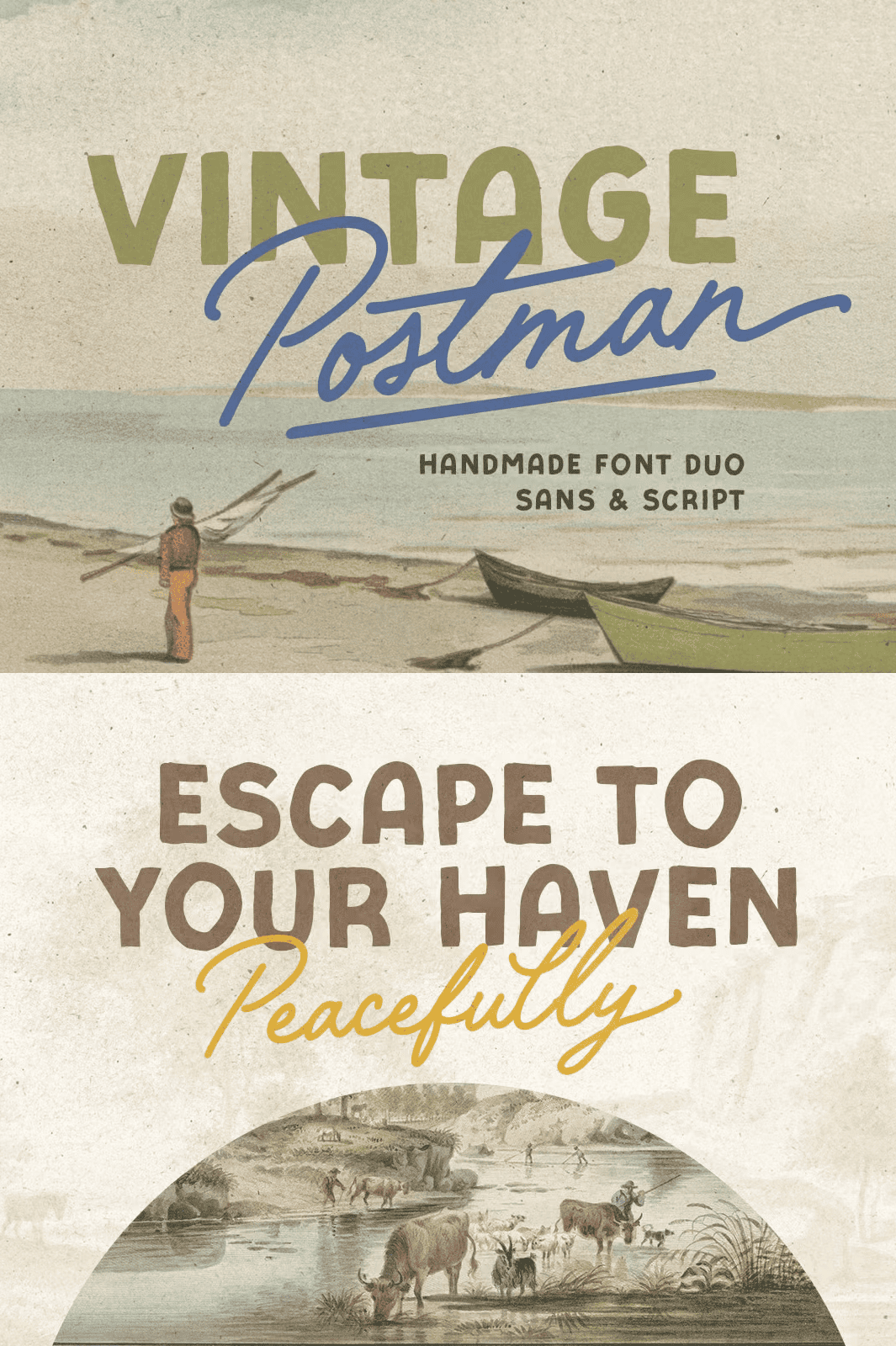
Vintage Postman – Handmade Font Duo
Transform Your Designs with Authentic Vintage Vibes
Step into a bygone era with **Vintage Postman**, a powerful handmade font duo that blends bold sans-serif strength and elegant monoline script flair. Designed for creatives who crave personality, character, and timeless appeal, this duo delivers the perfect fusion of retro energy and modern usability. Whether you’re crafting eye-catching posters, designing striking logotypes, composing impactful quotes, or building a memorable brand identity, Vintage Postman gives your work an instant sense of history and authenticity.
This isn’t just a font — it’s a visual narrative. Every stroke echoes the hand-lettered signs, old-fashioned shop fronts, and classic post office designs from the mid-20th century. With deliberate imperfections and a warm, handcrafted feel, Vintage Postman helps you tell a story that stands out in today’s digital world.
Powerful Tools for Creative Control
– **Customizable Underlines & End Lines** – Use OpenType ligatures to add dynamic visual elements. Simply type `_1`, `_2`, or `_3` in the middle of your text (e.g., `Post_2man`) to insert one of three underline styles. Similarly, type `=1`, `=2`, or `=3` at the end of your text (e.g., `Postman=2`) to add one of three elegant end line finishes.
– **Stylistic Alternates** – Access multiple variations of key characters to enhance visual diversity and prevent repetitive layouts.
– **Ligatures for Flowing Text** – Smooth connections between characters improve readability and bring a polished, professional look to your scripts.
– **Multi-Language Support** – Fully supports a wide range of international characters and symbols, including accented letters, currency signs (€, £, ¥), and special glyphs — ideal for global or multilingual design projects.
The font duo includes both **bold sans-serif** and **monoline script** styles, allowing you to mix and match for maximum creative flexibility. Use the bold sans for headlines and strong messaging. Pair it with the flowing script for contrast and elegance in branding, invitations, or editorial layouts.
Perfect for Every Retro-Driven Project
– **Poster Design**: Make your flyers, concert posters, and event announcements pop with bold, nostalgic flair.
– **Logotype & Branding**: Build memorable identities for cafes, boutiques, vintage apparel lines, and music labels.
– **Social Media Quotes**: Create scroll-stopping Instagram, TikTok, or Pinterest graphics with handcrafted authenticity.
– **Printed Collateral**: Elevate business cards, packaging, menus, and flyers with a tactile, artisanal touch.
The combination of strong structure and graceful script ensures your designs look intentional, not forced — perfect for both digital and print applications.
Don’t settle for generic fonts that blend into the background. Stand out with a typeface that tells a story. Vintage Postman is built for designers who value craftsmanship, uniqueness, and emotional impact.